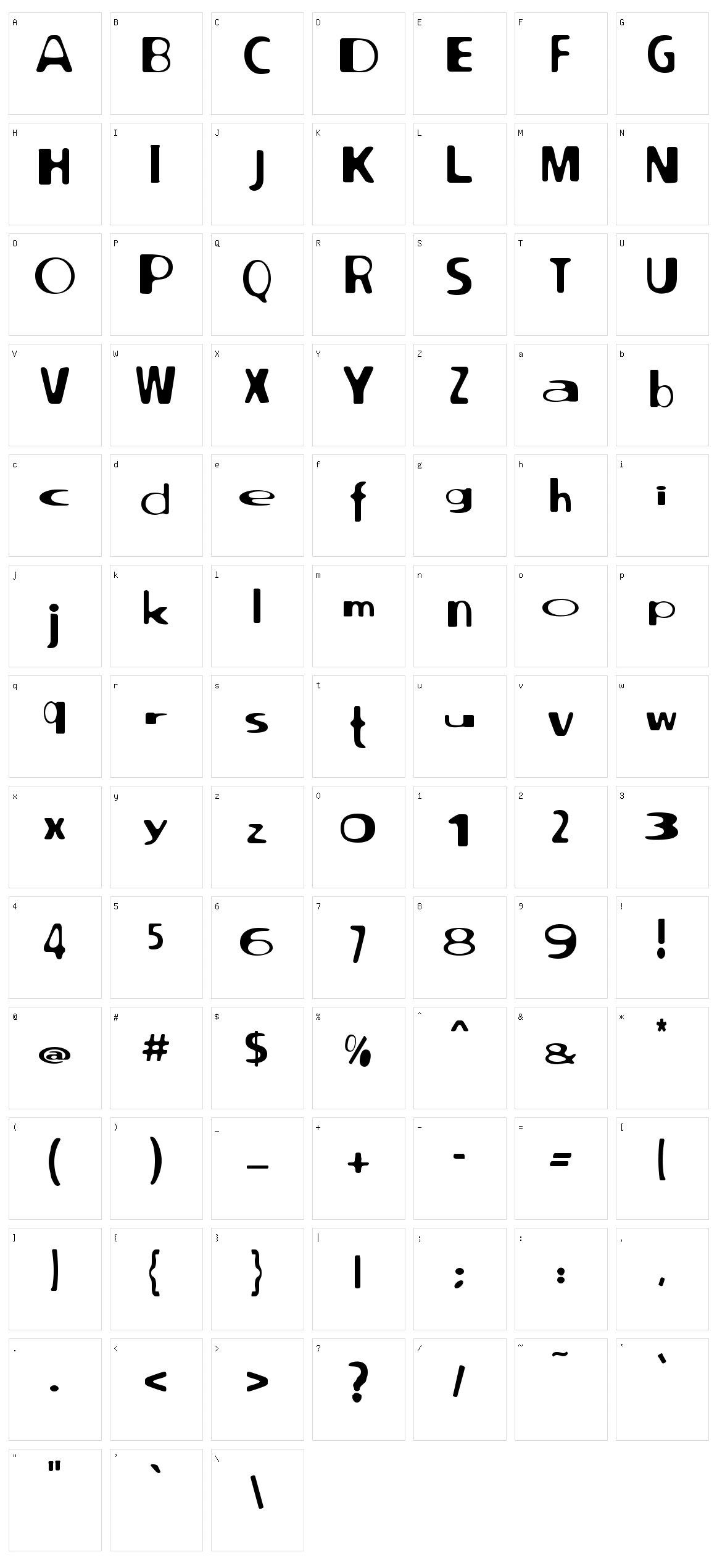
The free font North Point is carefully designed by Eyecue Design, showcasing a thoughtful balance of creativity and usability and falls under the Distorted font style. When you download the ZIP file, it contains only 23.18 KB of font files, making it lightweight and quick to download. Please review the license details below to understand permitted usage and distribution rights. If license information is not available, we recommend using this font for personal projects only or contacting the author directly for commercial usage permissions.
This font was made by EYECUE DESIGN (Chris Brown)